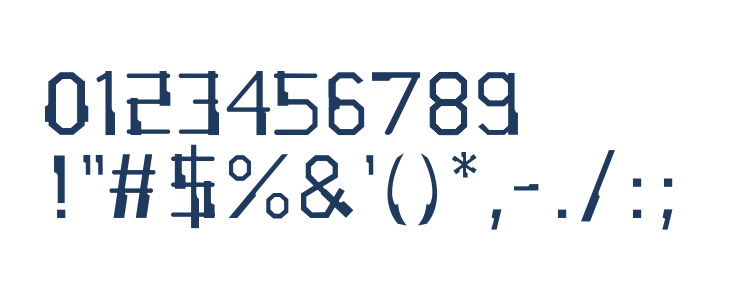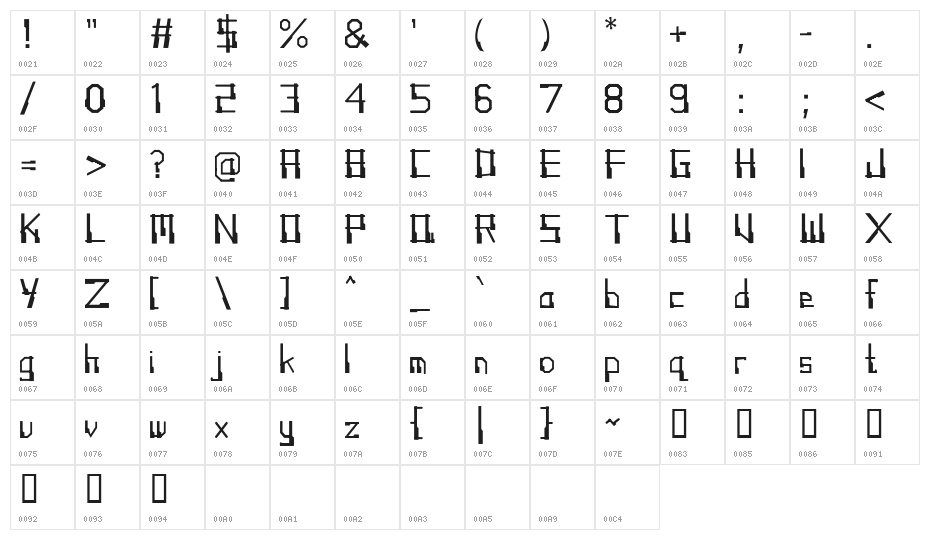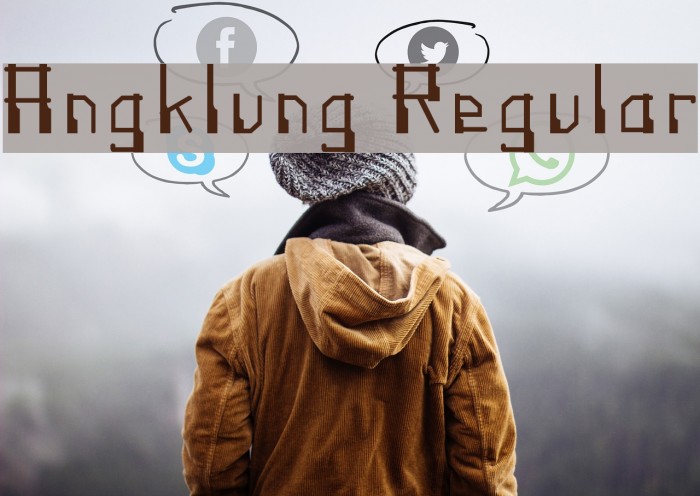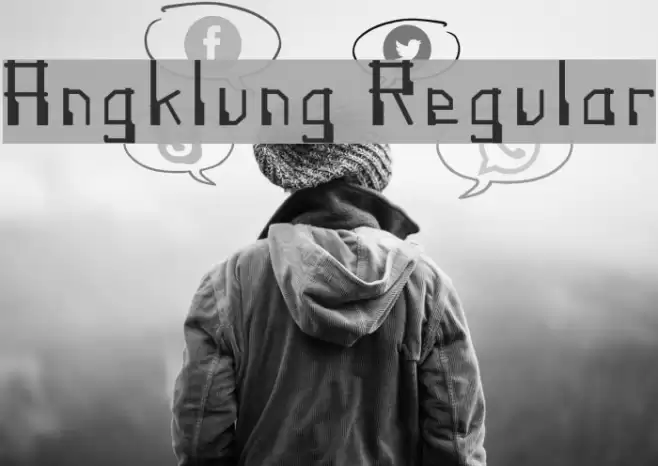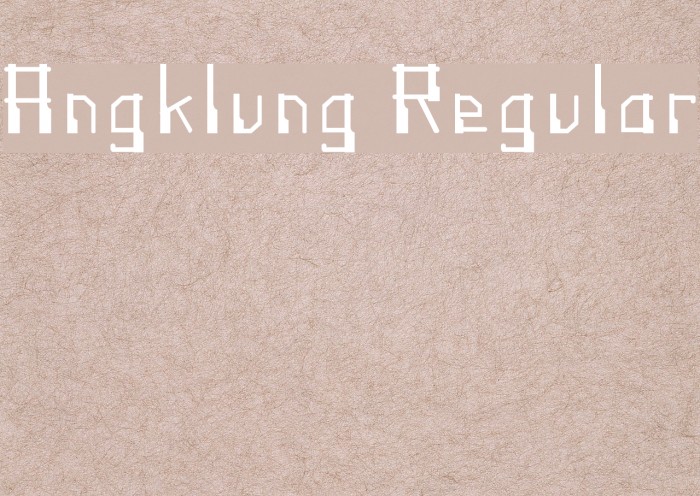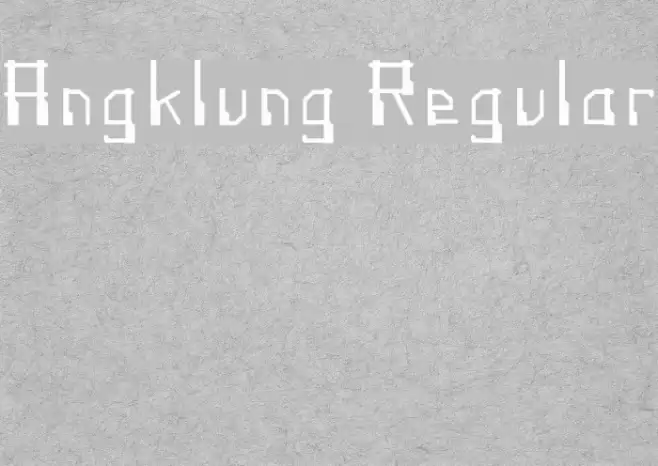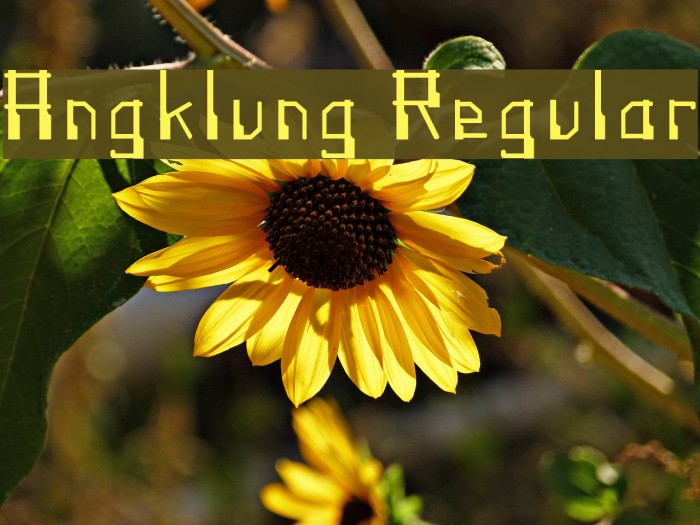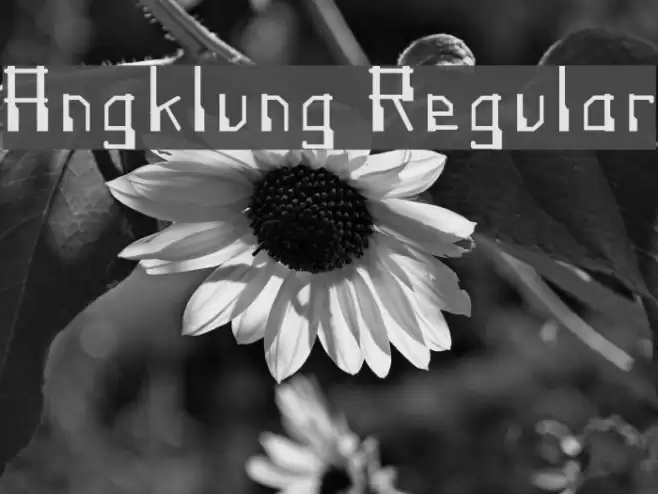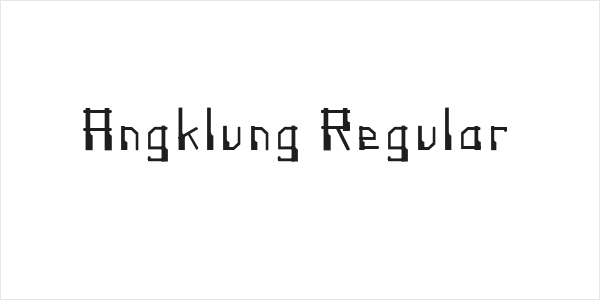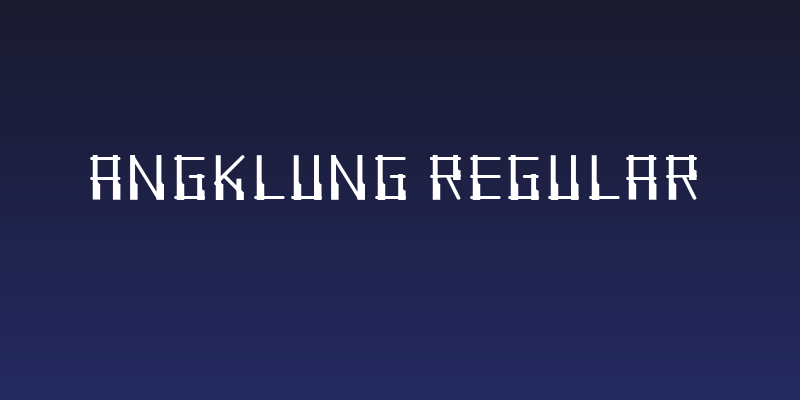
Angklung Regular Font
Angklung Regular Description
This font features a unique and bold design with a geometric and angular structure. The characters are constructed with a combination of straight lines and sharp angles, giving it a distinct and modern appearance. The uppercase letters are particularly striking, with a uniform height and consistent spacing that enhances readability. The lowercase letters maintain the same angular style, providing a cohesive look across the typeface. Numbers and special characters are designed with the same attention to detail, ensuring versatility in various design contexts.
| Proposed Projects | Ideal for use in modern branding, poster designs, and digital media where a strong visual impact is desired. |